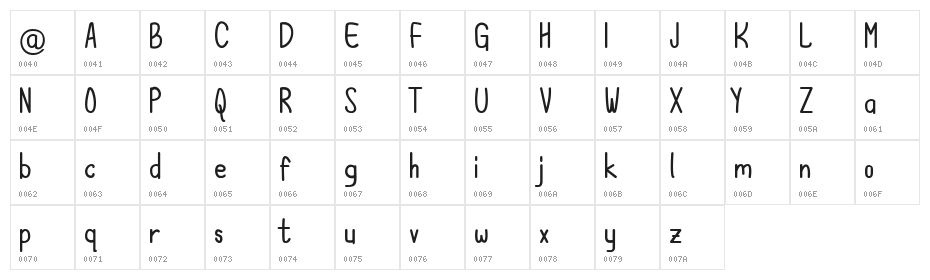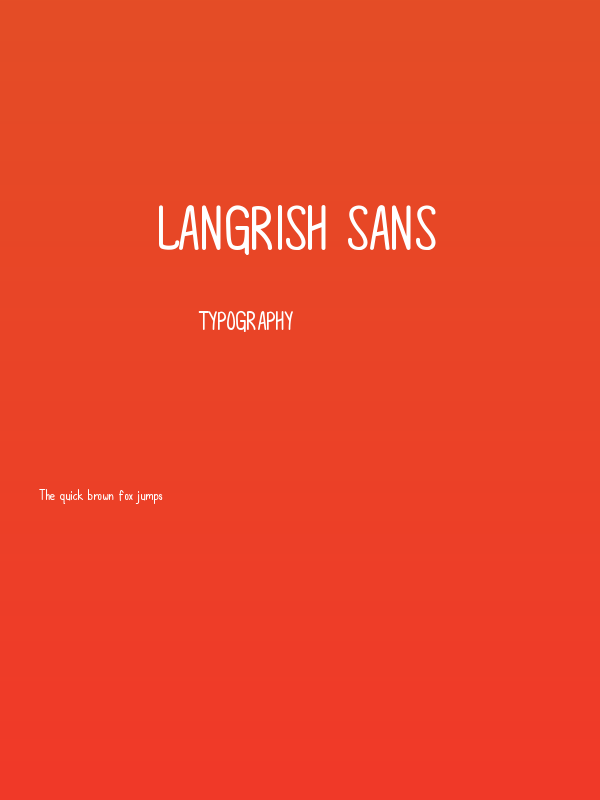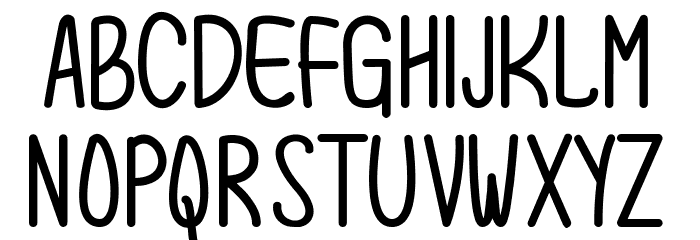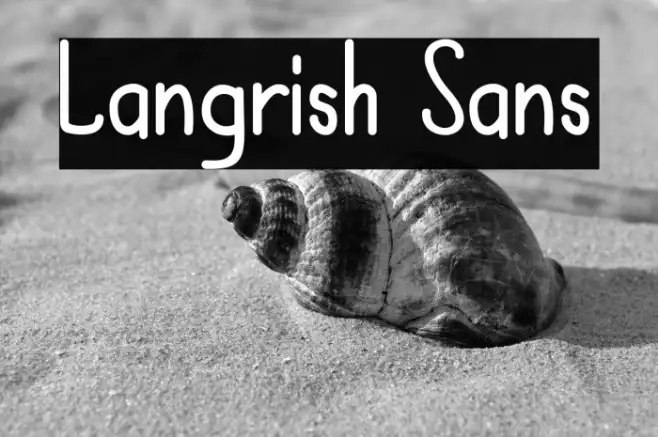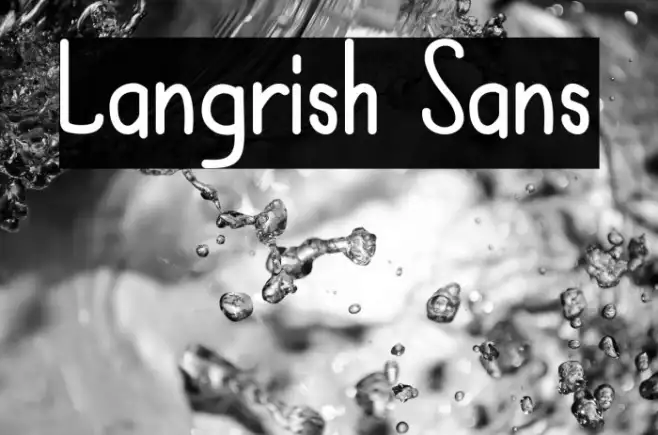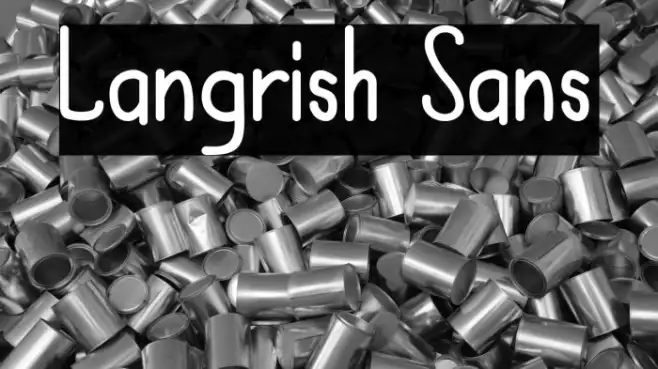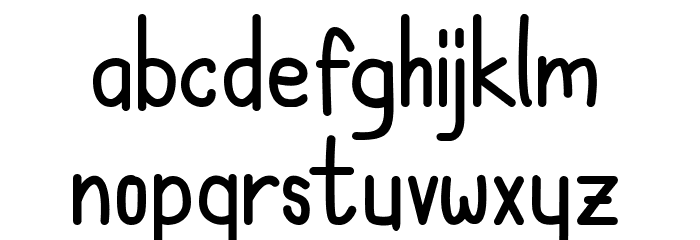
Langrish Sans Font
Langrish Sans Description
This font features a playful and casual handwritten style, characterized by its smooth, rounded edges and consistent stroke width. The letters are slightly elongated, giving them a unique, whimsical appearance. The uppercase and lowercase letters maintain a cohesive look, with a slight slant that adds to the informal feel. The font's design is clean and legible, making it suitable for a variety of creative projects. Its friendly and approachable aesthetic is perfect for conveying warmth and personality.
| Proposed Projects | Ideal for greeting cards, children's books, casual branding, and social media graphics. |